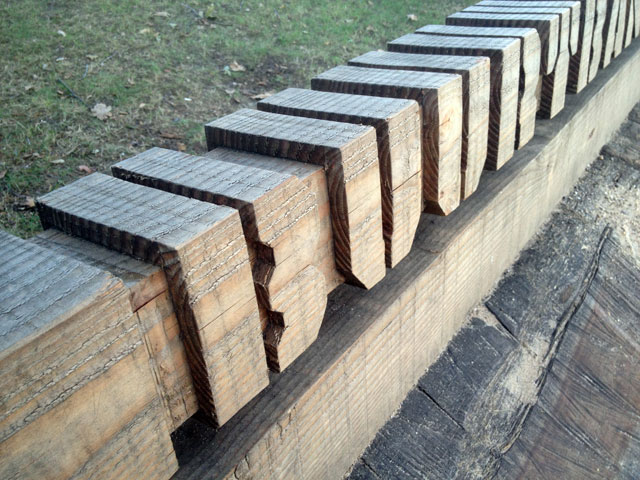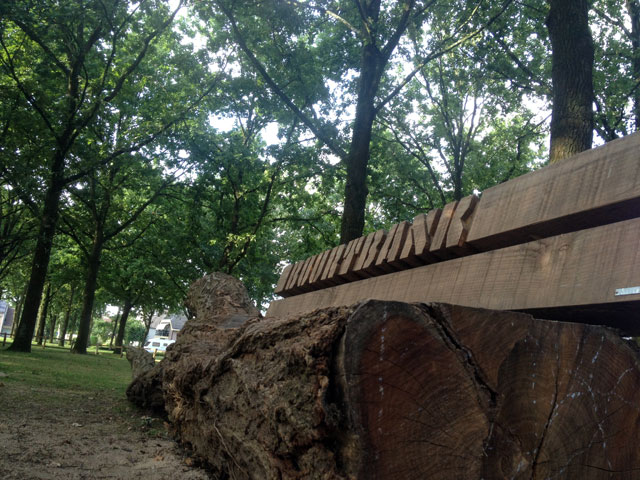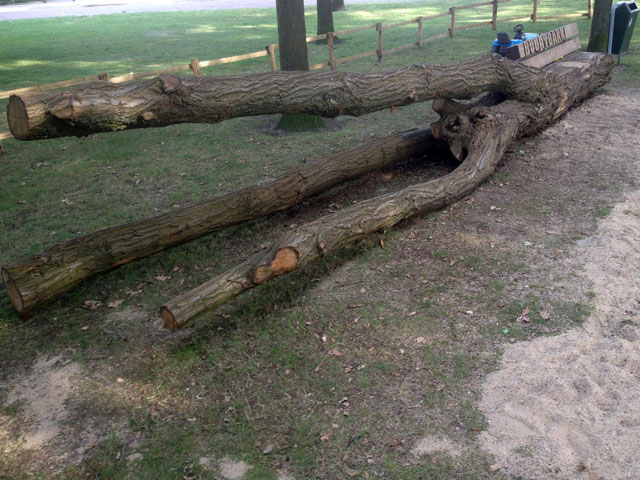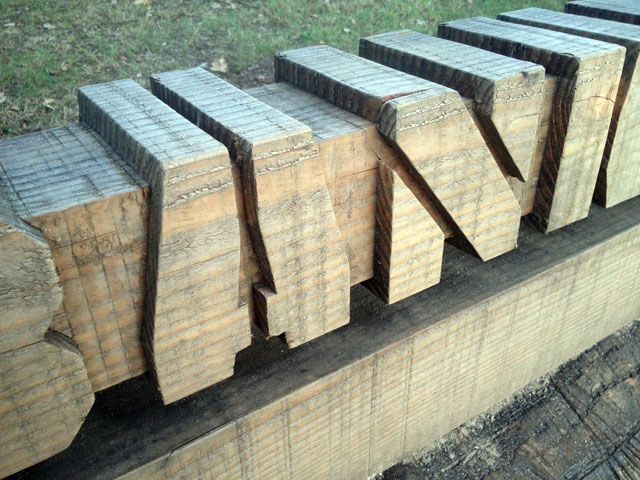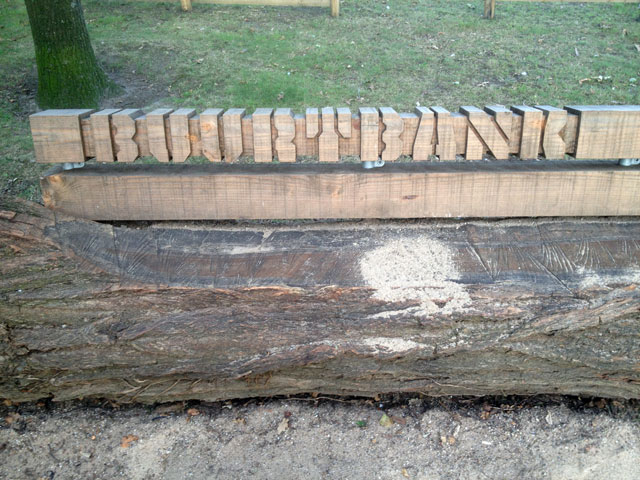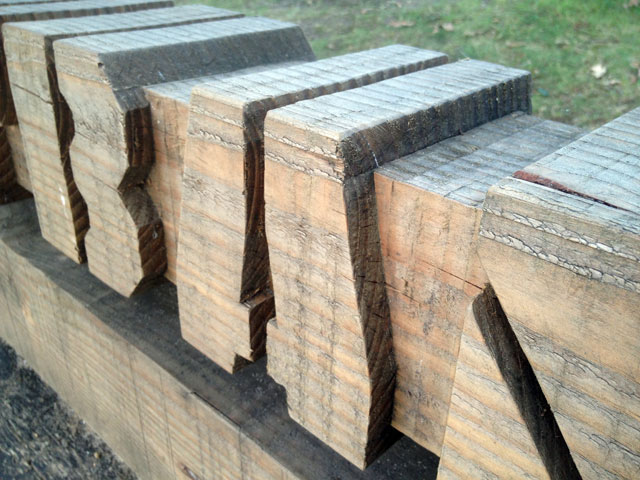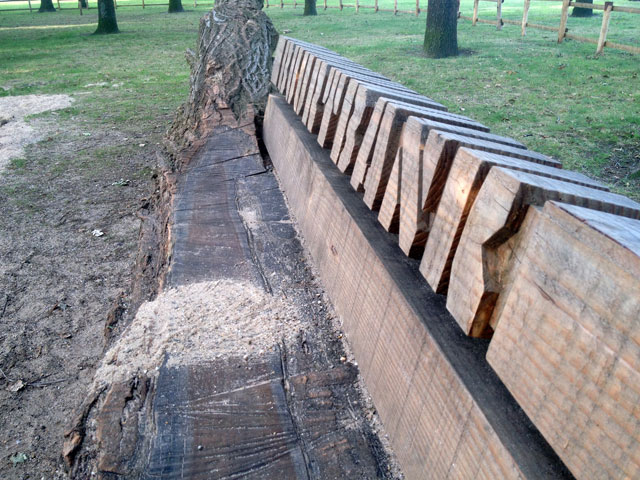
Why wouldn’t you turn around the stencil effect of a stencil font? Instead of spraying letters through cutout stencil shapes, Studio Baak used the straight lines of Tripper to cut the text out of wood and reduced the height and depth of the “white space”. Example of a unexpected application of a stencil font, just because it’s made out of straight lines only. Nice!
Buurtbank
Studio Baak
Tripper